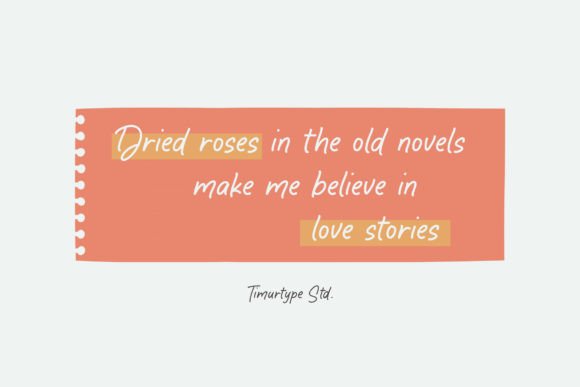
Introducing Dreamy Wallabies Font: A Fun and Whimsical Handwritten Font by Timurtype Studio!
Are you looking for a font that can add a touch of playfulness and joy to your design projects? Look no further than the Dreamy Wallabies font, a fun and quirky handwritten font introduced by Timurtype Studio. This font is perfect for designers who want to create inspirational quotes, posters, and social media graphics that are meant to uplift and inspire.
What Makes Dreamy Wallabies Font So Special?
The Dreamy Wallabies font is a whimsical and playful choice for any design project. Its quirky and energetic letterforms bring a sense of joy and creativity to any text. The hand-drawn style and uneven lines give it a charming and imperfect look, adding character to your designs. This font is perfect for designers who want to add a personal touch to their work and make it stand out from the crowd.
One of the best things about the Dreamy Wallabies font is its versatility. It can be used for a wide range of design projects, from inspirational quotes and posters to social media graphics and more. The font is also multilingual, making it a great choice for designers who work with clients from different parts of the world.
Key Features of Dreamy Wallabies Font
- Fun and quirky handwritten font: The Dreamy Wallabies font is a fun and playful handwritten font that adds a touch of personality to any design project.
- Hand-drawn style: The font has a hand-drawn style with uneven lines, giving it a charming and imperfect look.
- Multilingual support: The font supports multilingualism, making it a great choice for designers who work with clients from different parts of the world.
Here are a few ideas for using the Dreamy Wallabies font in your design projects:
- Inspirational quotes: Use the Dreamy Wallabies font to create inspirational quotes that are meant to uplift and inspire.
- Posters: Use the font to create eye-catching posters for events, promotions, or social causes.
- Social media graphics: Use the font to create social media graphics that are meant to engage and inspire your followers.
Why Choose Dreamy Wallabies Font?
There are many reasons why you should choose the Dreamy Wallabies font for your design projects. Here are a few:
- Unique and quirky: The font has a unique and quirky style that will make your designs stand out from the crowd.
- Easy to read: Despite its playful style, the font is easy to read and can be used for both short and long texts.
- Multilingual support: The font supports multilingualism, making it a great choice for designers who work with clients from different parts of the world.
In conclusion, the Dreamy Wallabies font is a fun and whimsical handwritten font that is perfect for designers who want to add a touch of playfulness and joy to their design projects. With its quirky and energetic letterforms, hand-drawn style, and multilingual support, this font is sure to become a favorite in your design toolkit.